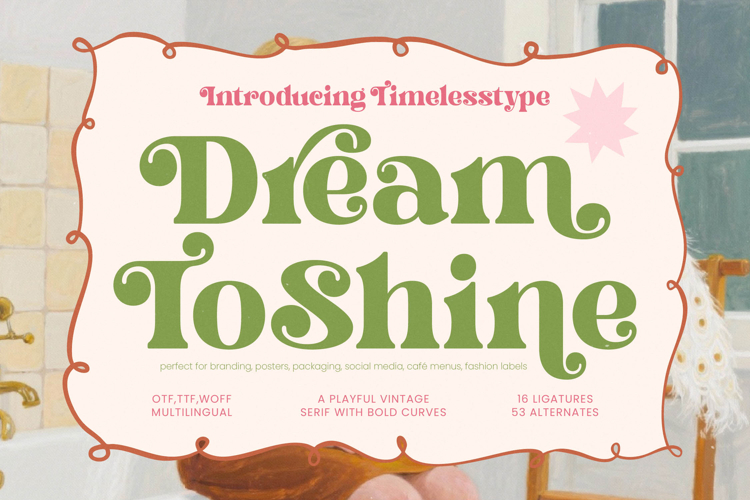
Dream Shine - Playful Vintage Serif
Dream Shine - Playful Vintage Serif is the definitive typeface for creators seeking a truly expressive aesthetic. This bold, vintage serif boasts dramatically fluid curves and a chunky, commanding presence, instantly evoking the maximalist spirit of the 1970s while remaining perfectly polished for contemporary use. Its unique, heavyweight design strikes a perfect balance between retro charm and high-impact legibility, positioning it as an essential tool for distinctive display purposes and headlines that demand attention.